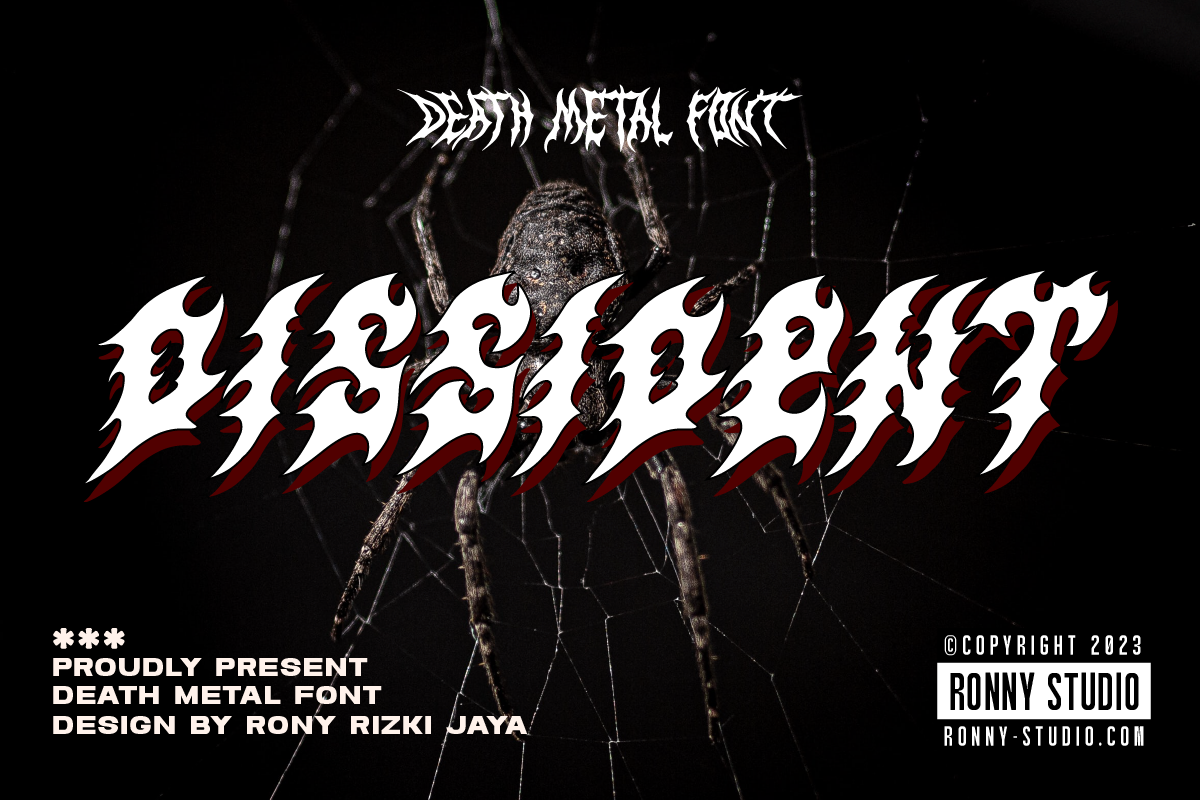
Dissident Death Metal Font Free Download
Dissident Death Metal Font Free Download is a brutal, intense typeface designed to embody the raw energy and aggression of extreme metal music. With jagged edges, chaotic forms, and an electrifying visual presence, this font is perfect for band logos, album covers, concert posters, and dark-themed merchandise.
Crafted for fans of underground aesthetics, Dissident delivers that unmistakable heavy vibe that screams rebellion and darkness. Its distorted, razor-sharp letterforms create an atmosphere of unease—ideal for horror visuals, hardcore branding, and anything that demands a fearless visual identity.